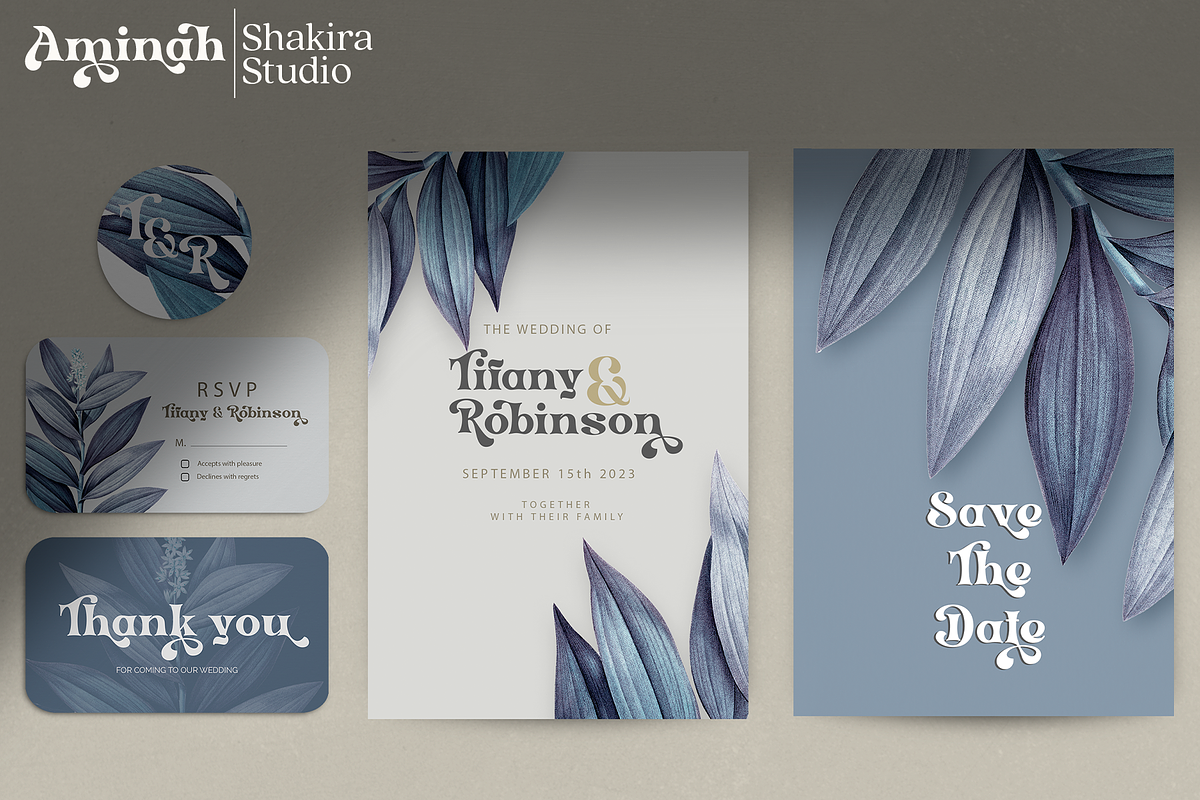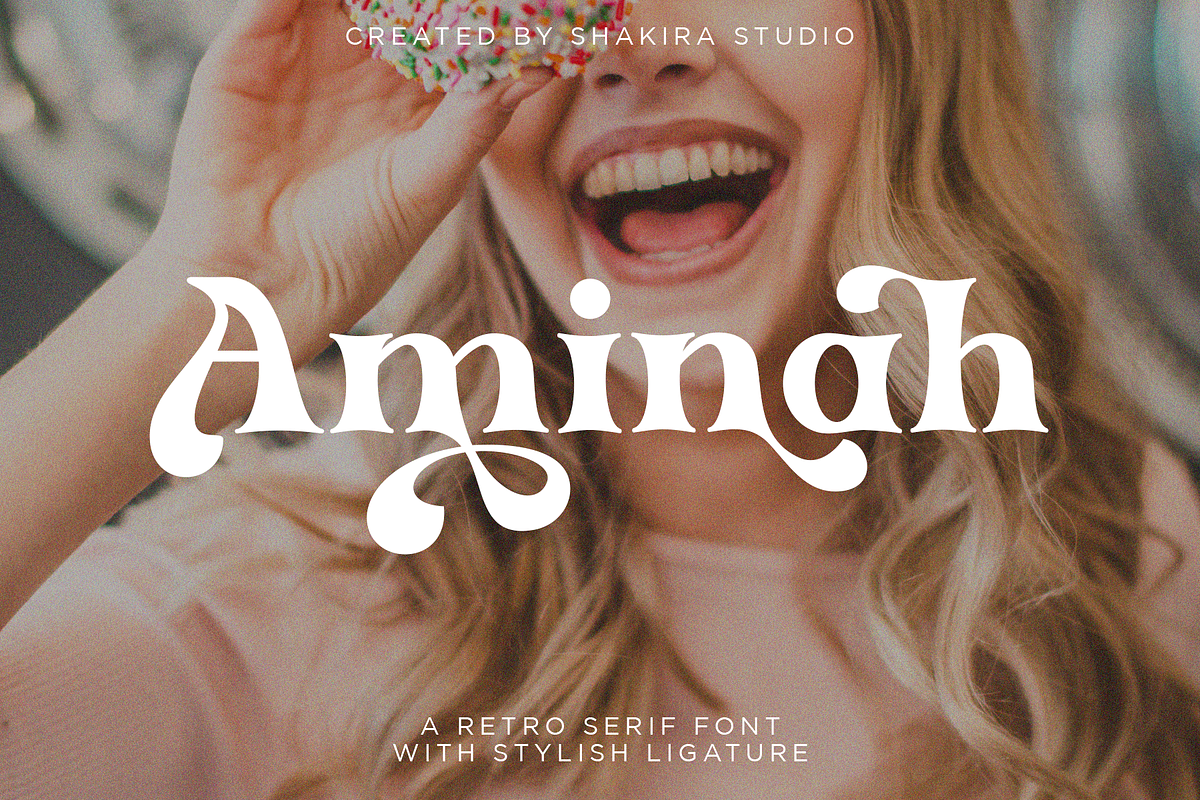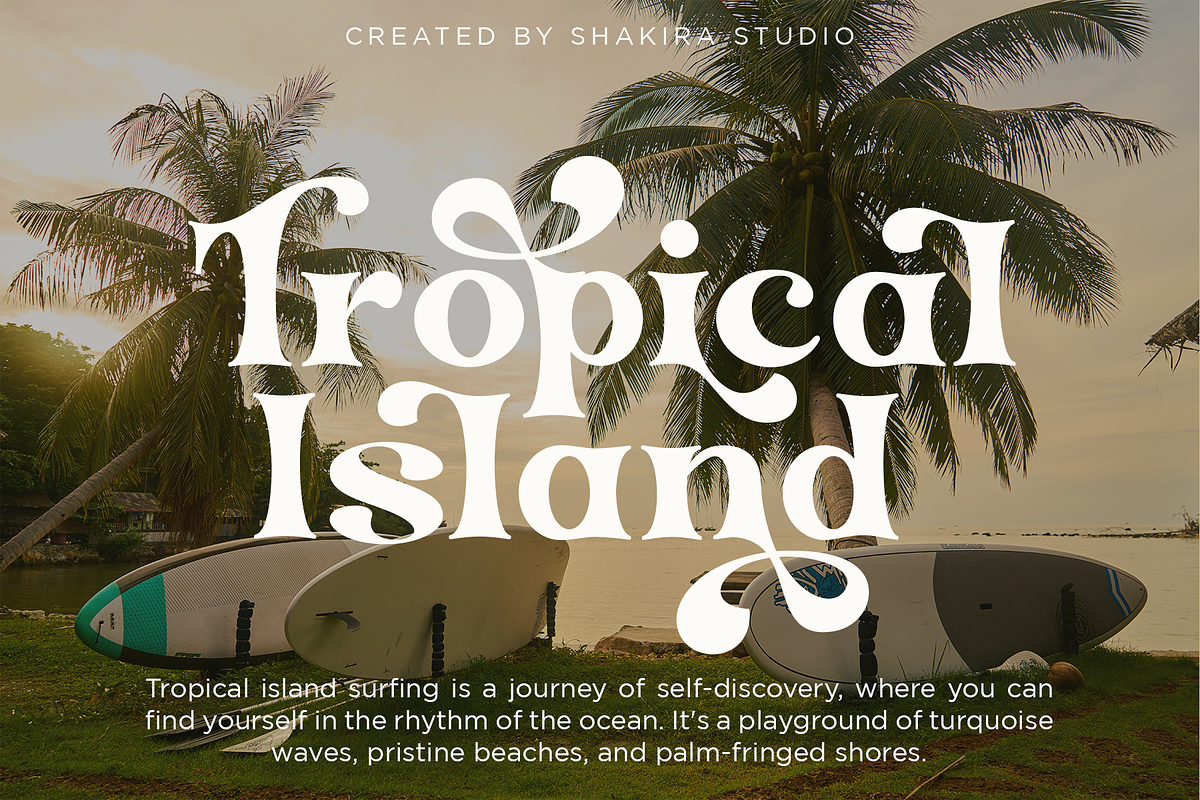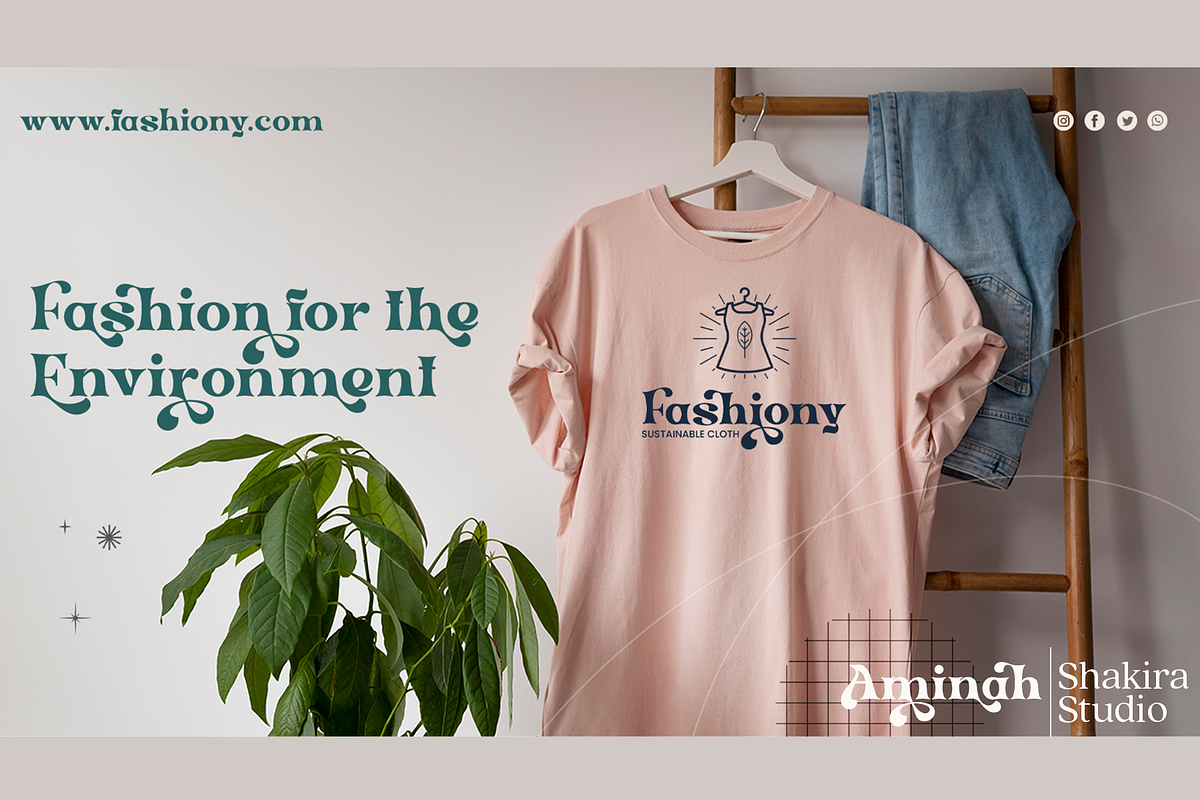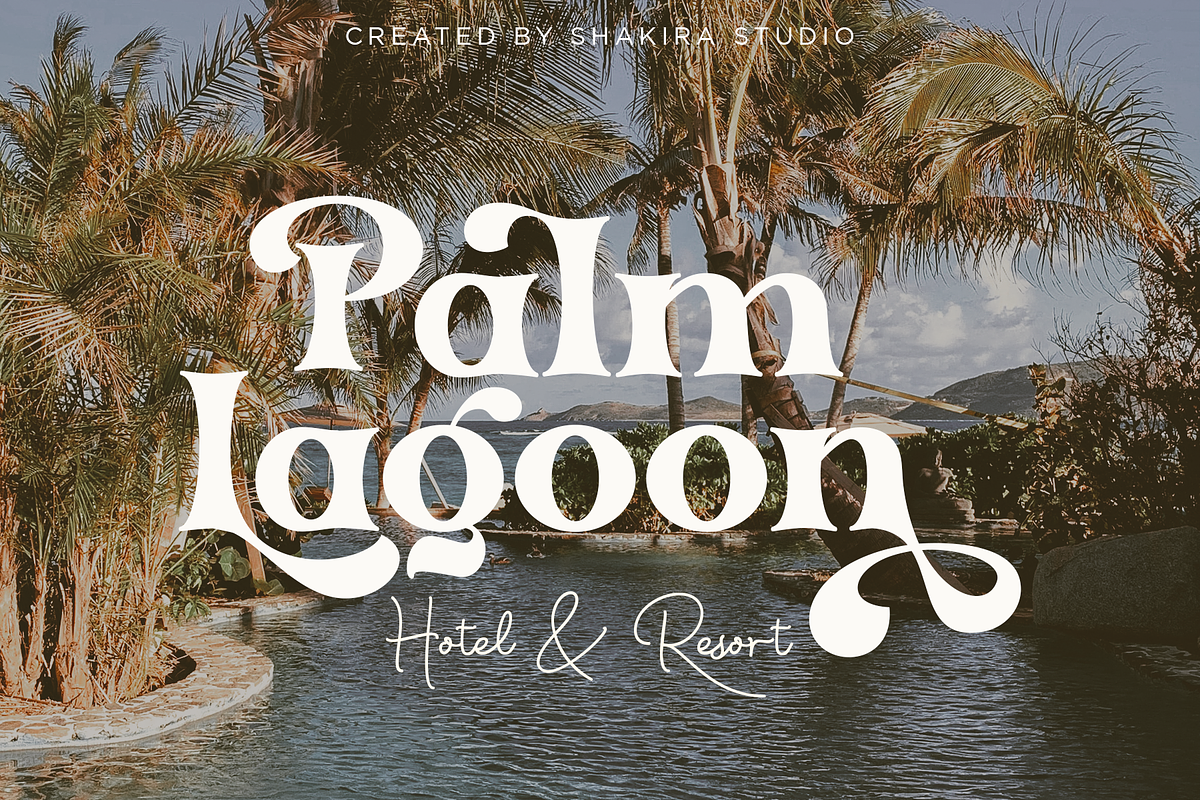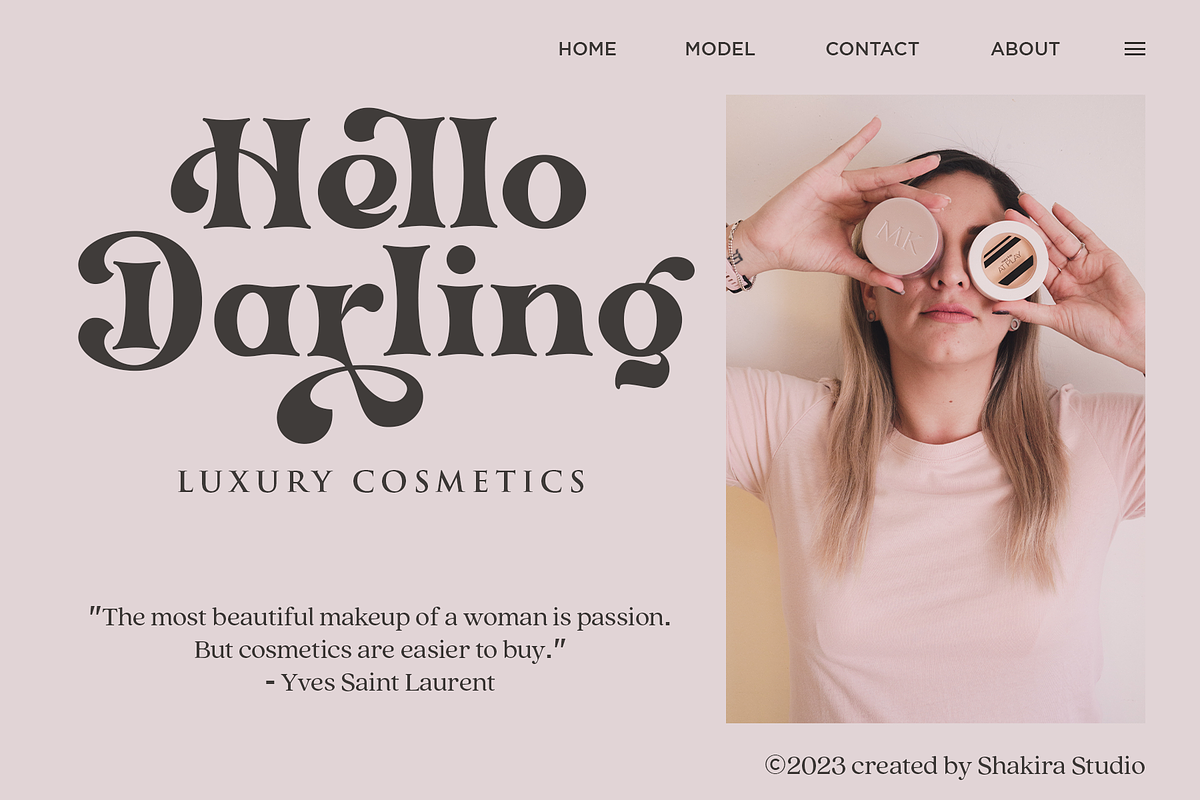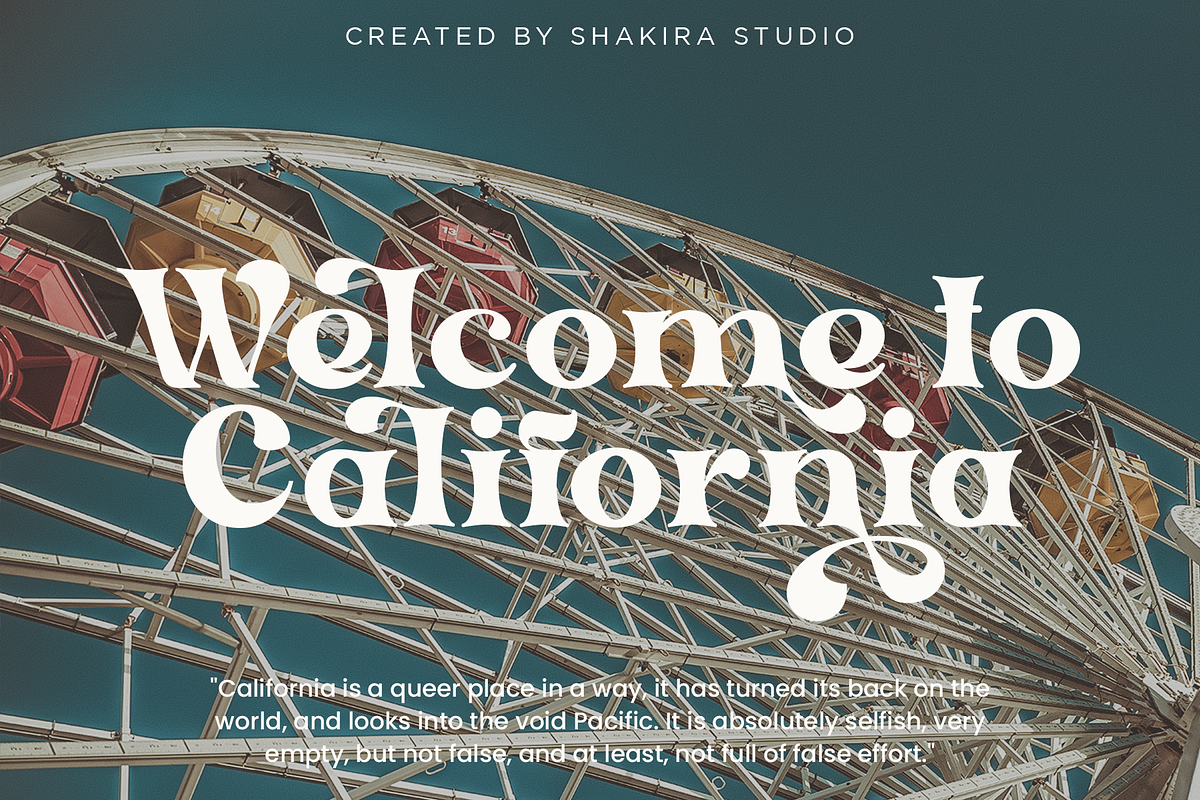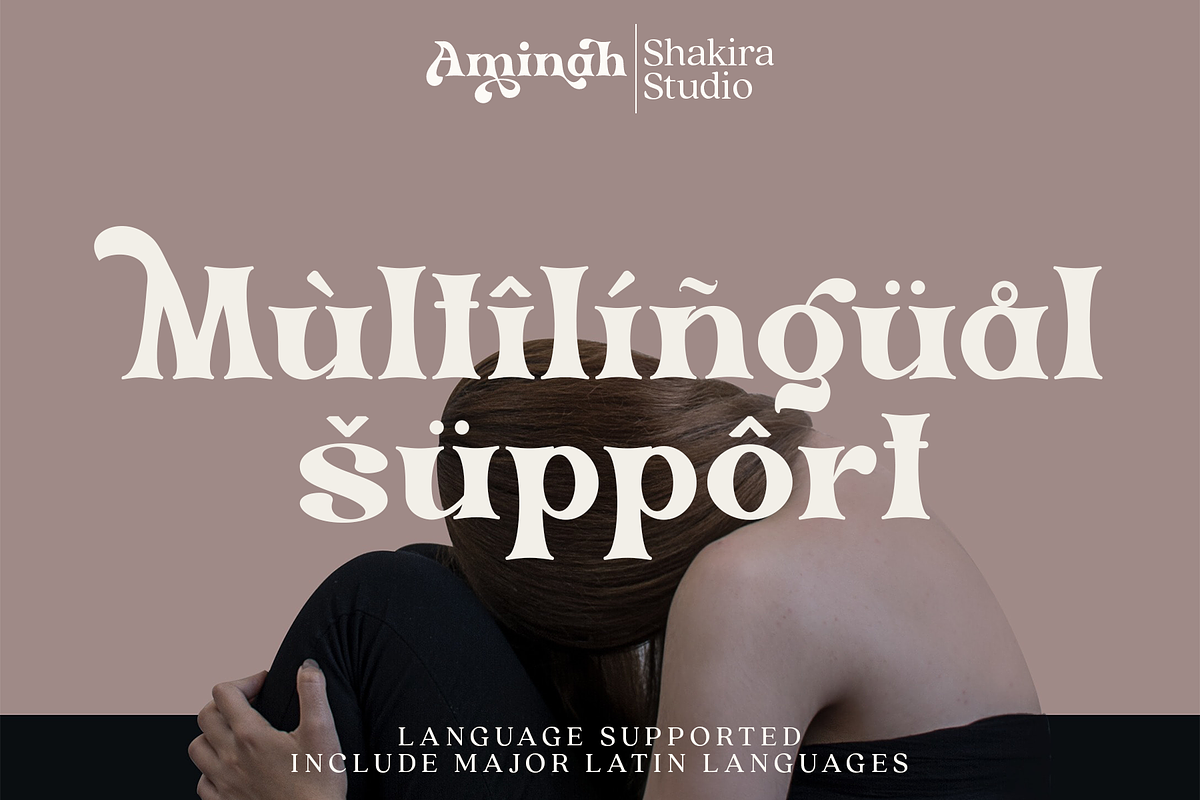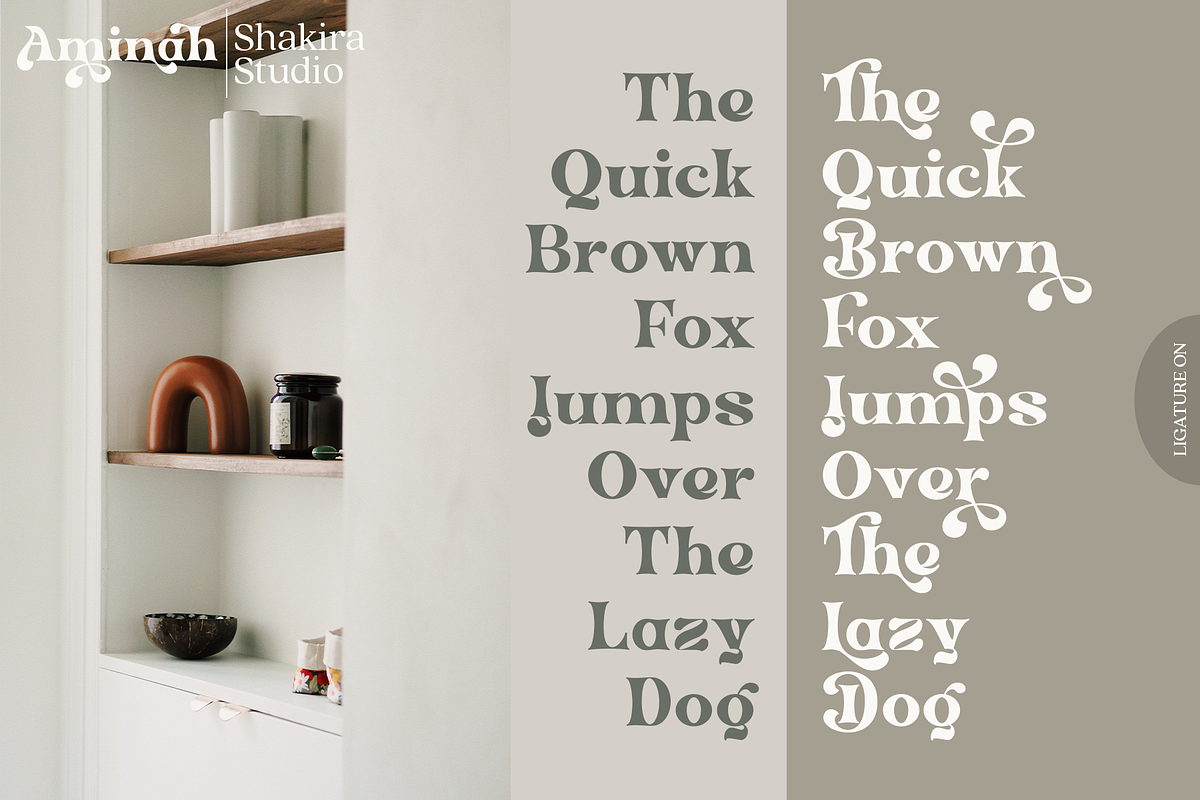
Aminah - Modern Retro Serif
Aminah is a retro serif font that brings a classic and charming vintage touch to your designs. This font combines elegant serif elements with a stylish retro feel, creating a unique and eye-catching combination.
Aminah is suitable for use in a variety of retro design projects, such as posters, greeting cards, logo designs, and brand displays that want to convey a vintage, classic yet modern feel.
With Aminah, you'll have an elegant, stylish, and full of character retro serif font with a large selection of ligatures to bring that special touch to each of your designs. This font will be the perfect choice for designers who want to explore design inspiration from the classic retro era but still trendy.
- Unique letterforms